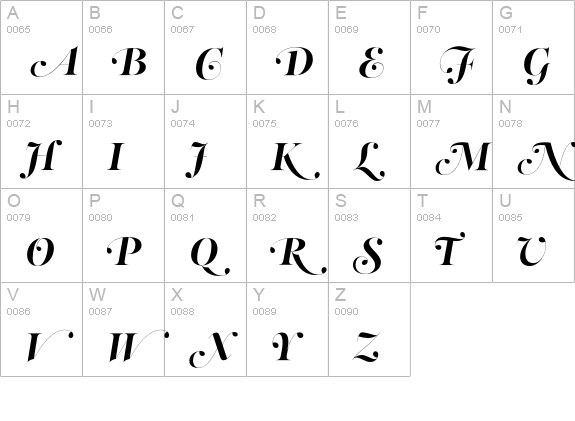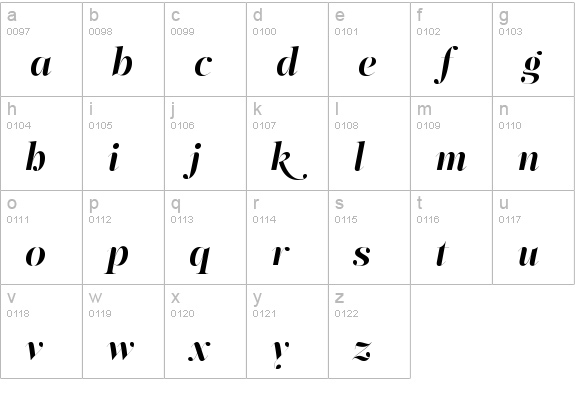
PFRegalSwashPro-Bold Font Details
PFRegalSwashPro-Bold is a strong, high-contrast variant in the PFRegalSwashPro typeface family \xE2\x80\x94 well suited to headlines, attention-grabbing titles, and strong calls-to-action.
PFRegalSwashPro-Bold is a stunning and elegant typeface that exudes sophistication and style. With its bold and regal swashes, this font is perfect for adding a touch of luxury to any design project. The intricate details and graceful curves of PFRegalSwashPro-Bold make it a standout choice for headings, logos, invitations, and more. And the best part? PFRegalSwashPro-Bold is available for free download at FontsMarket.com! Embrace the beauty and versatility of this font without any cost, and elevate your designs with its timeless charm. Make a statement with PFRegalSwashPro-Bold and let your creativity shine.